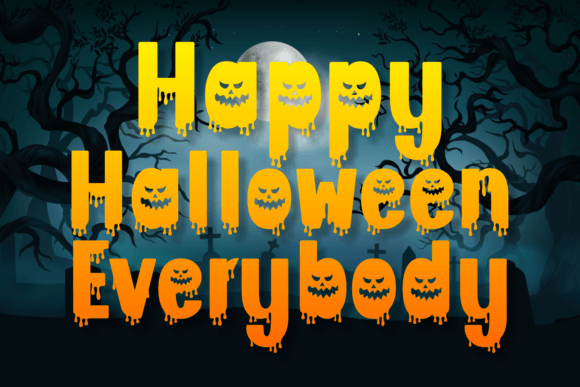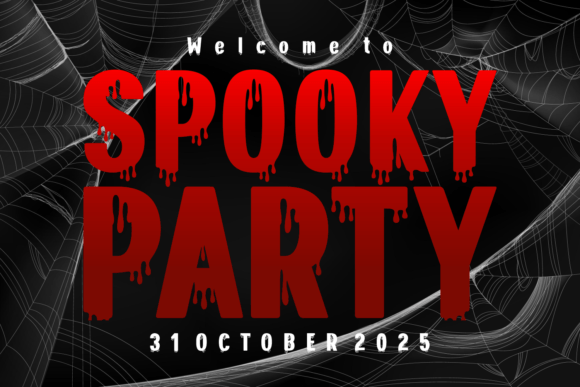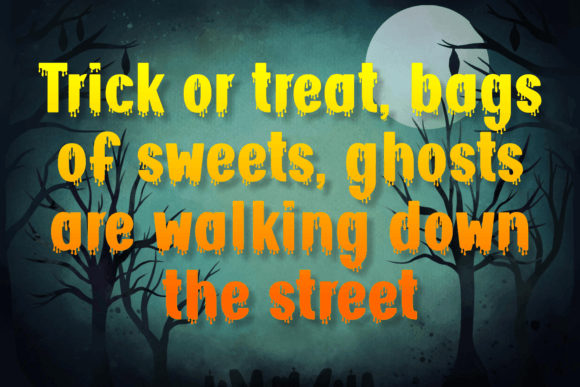
Introduction to Bloody Pumpkin Font
Bloody Pumpkin is a spooky Halloween-themed decorative font.
Get ready for the scariest night of them all with this festive typeface Use it to create eye-catching posters, decorations, cards, invitations, banners, and many more.
Key Features of Bloody Pumpkin Font